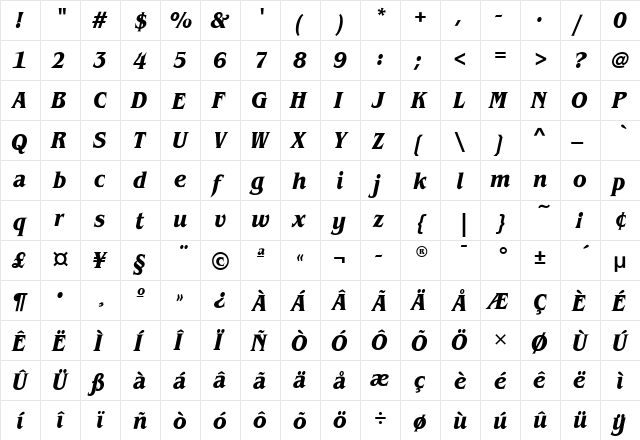
BenguiatCdITC Bold Italic
Design Context for BenguiatCdITC Typeface
BenguiatCdITC offers clean, dependable letterforms without strong stylistic allegiance, making it a practical choice for designers who need flexibility. The dynamic lean of this cut emphasises speed and emphasis in any layout. The heavy weight commands attention and anchors typographic hierarchies.
Pro Tip: Use BenguiatCdITC for emphasis, pull quotes, and subheadings where its slanted energy can add rhythm to the layout.